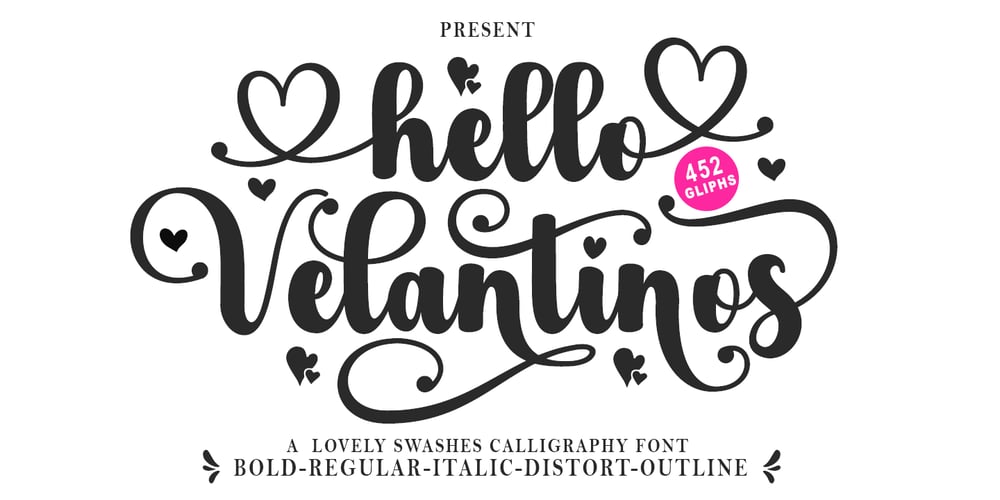
Hello Velantinos Font Family was designed by Ikhsan Maulana and published by IM Studio. Hello Velantinos contains 4 styles and family package options. Hello Velantinos is modern calligraphy. a bold, elegant & fun vintage script font. It can be used for various purposes such as logos, wedding invitations, t-shirts, letterheads, signage, news, posters, badges etc.Hello Velantinos features 453 glyphs and 222 alternate characters, ligatures, washes and multiple language support.To enable the OpenType Stylistic alternative, you need a program that supports OpenType features such as Adobe Illustrator CS, Adobe Indesign & CorelDraw X6-X7.How to get alternative glyph access from open type fonts: http://youtu.be/iptSFA7feQ0There are additional ways to access alternatives/swashes, using Character Map (Windows), Nexus Font (Windows), Font Book (Mac) or a software program such as PopChar (for Windows and Mac).How to access all alternative characters, using Windows Character Map with Photoshop: https://www.youtube.com/watch?v=Go9vacoYmBwNeed help? If you need help or advice, please contact me.